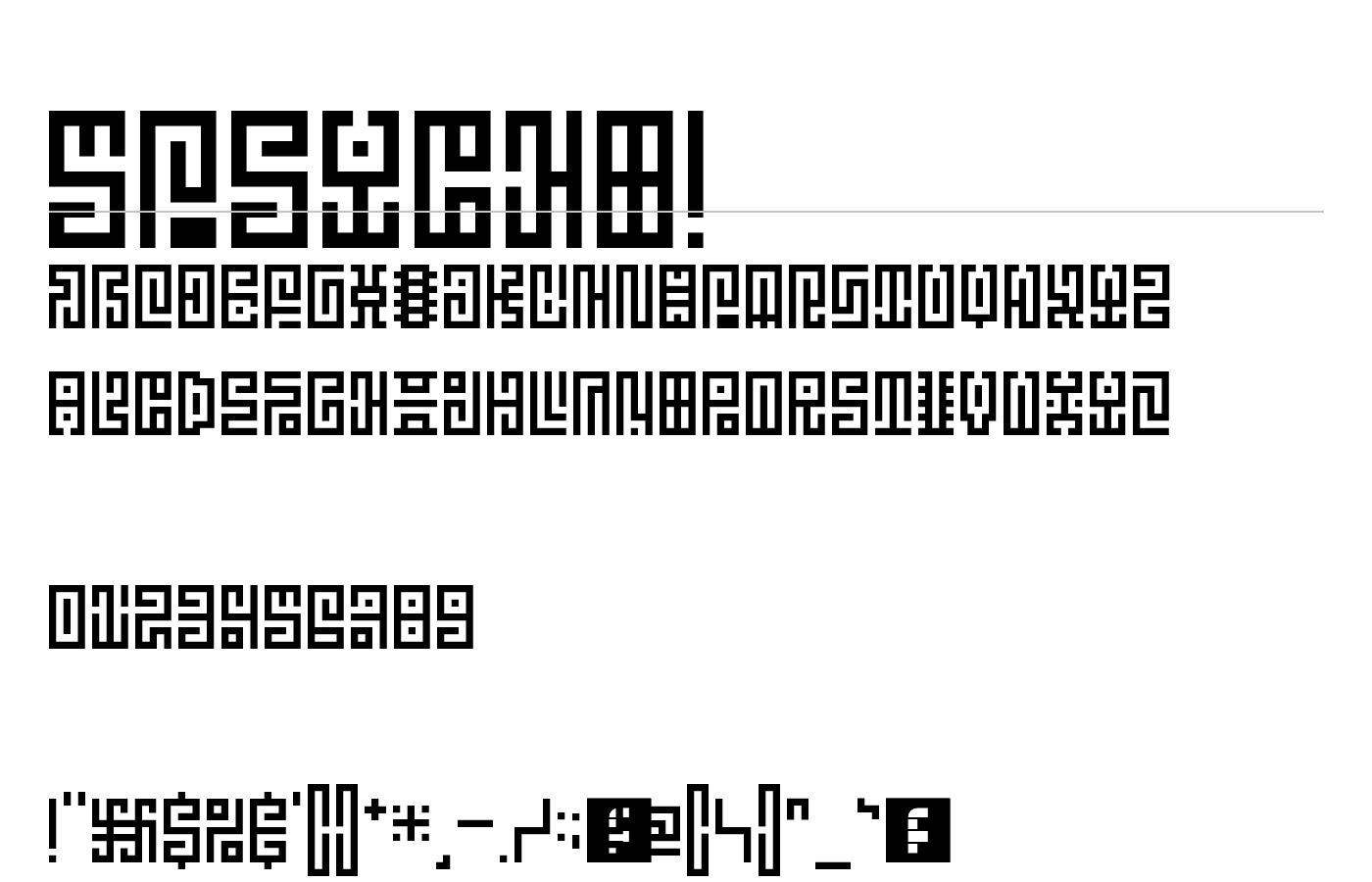
5Psycho! is a bold, highly geometric display font with a blocky, maze-like design that gives it an edgy, futuristic vibe. Its unusually square letterforms and tight spacing create a compact and visually intense style, perfect for eye-catching headlines or artistic branding that wants to convey a sense of complexity and modernity. This font works best in creative projects, posters, or logos where a striking, unconventional look is desired.
5Psycho! Font
| Font family | 5Psycho! Font |
| Designer | Noah - 10 year old typomaniac |